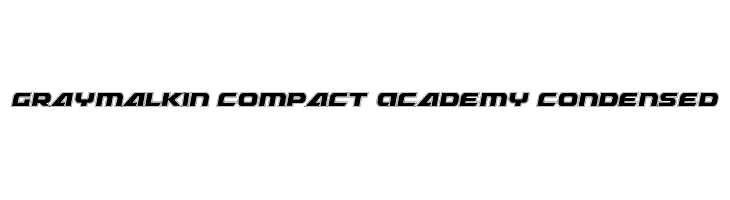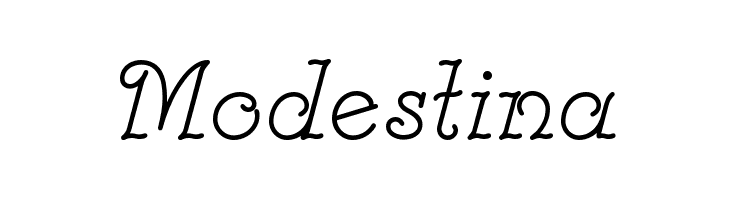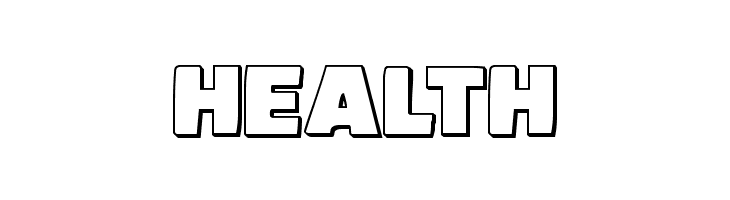
A playful and elegant script font with a handwritten quality.
A bold, geometric font with a strong, block-like appearance and uniform thickness.
A futuristic, condensed italic font with bold, angular characters.